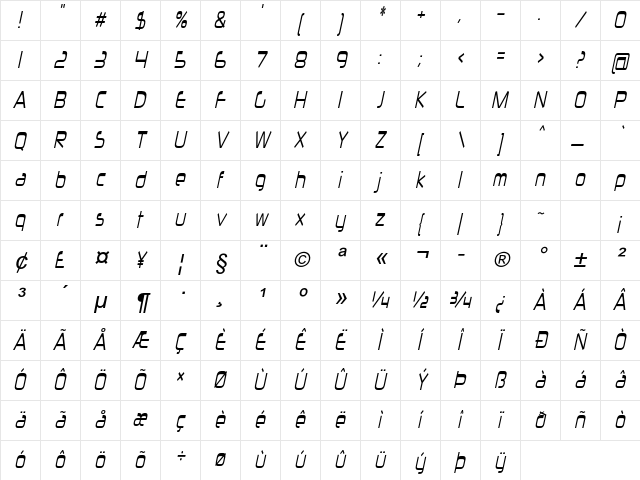
Erval Italic
Erval Family
Design Context for Erval
Erval is a composed and adaptable typeface that performs quietly and consistently across a wide range of design contexts. The slanted form adds forward momentum and visual energy.
Pro Tip: Use Erval for emphasis, pull quotes, and subheadings where its slanted energy can add rhythm to the layout.